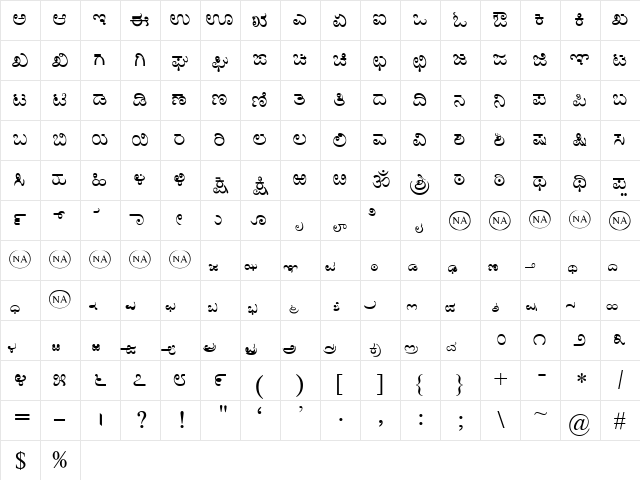
Baraha Kan Regular
Design Context for Baraha Kan Typeface
Baraha Kan takes a measured approach to typography — its balanced proportions and neutral character make it a reliable workhorse for both digital and print work.